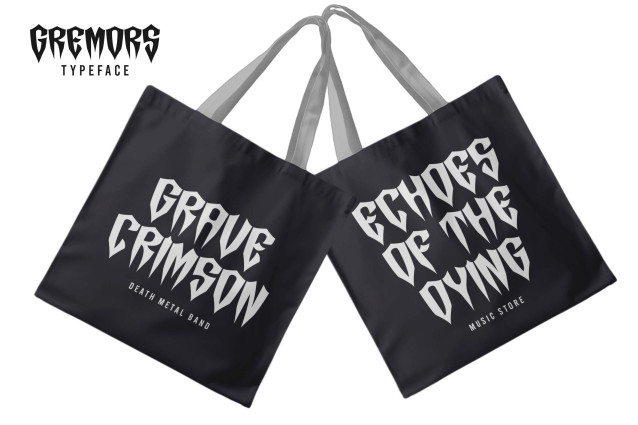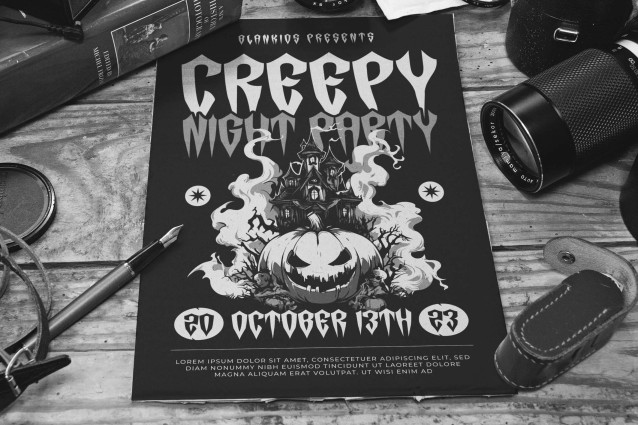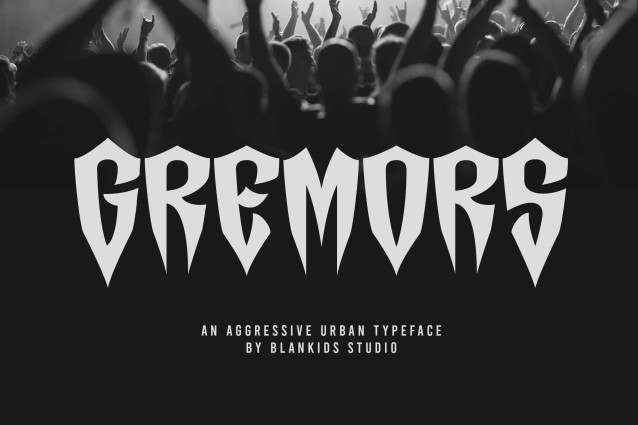
Gremors Font
Gremors font is an aggressive urban font created for any professional branding project such as logos, watermarks, posters, branding, promotions, product packaging, etc. Each letter has a horror style design. This font comes in Otf. and Ttf files.
Gremors font includes a complete set of horror uppercase and lowercase letters, numbers and punctuation. This font has a horror style. Check out the preview above for some inspiration on how to use them.